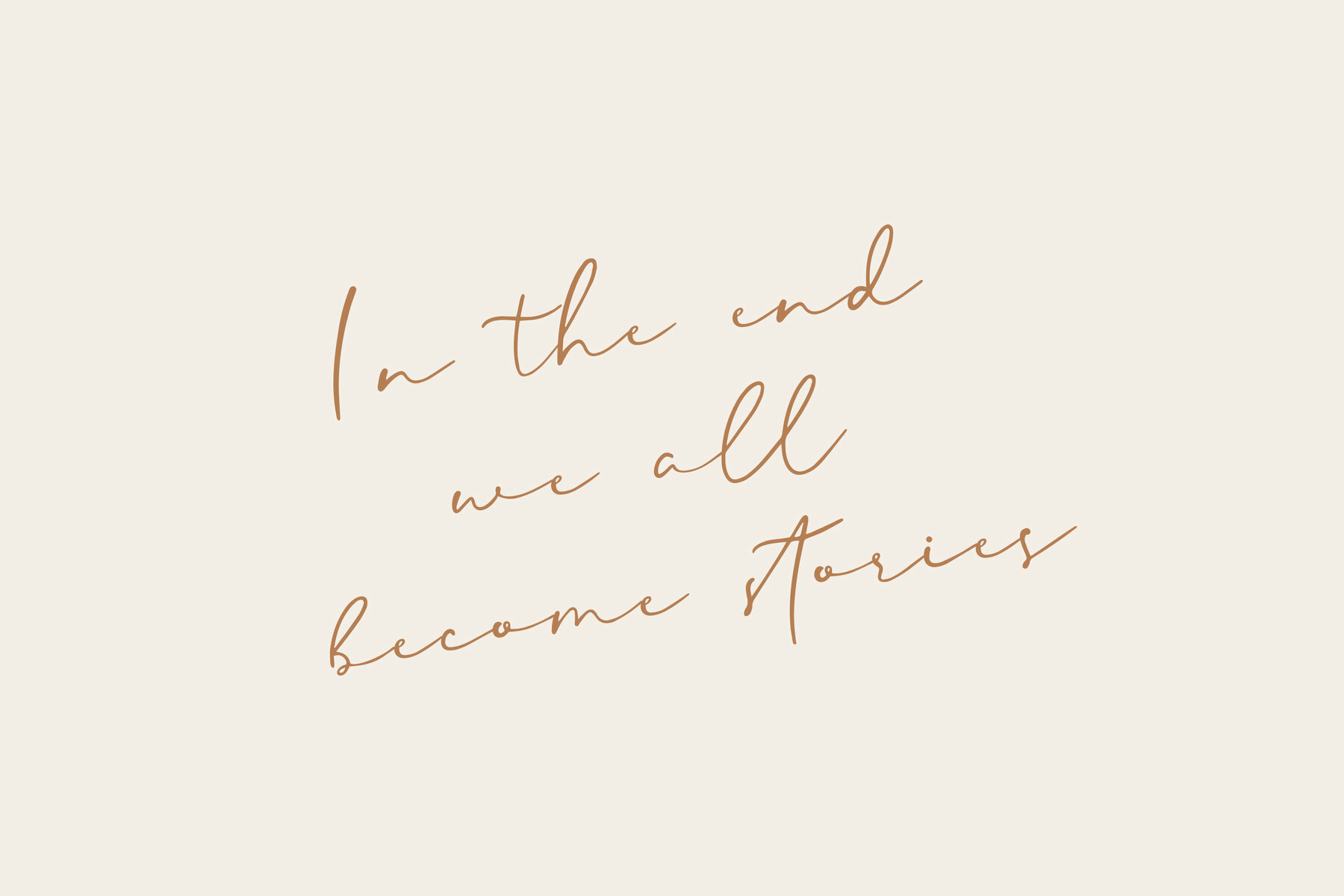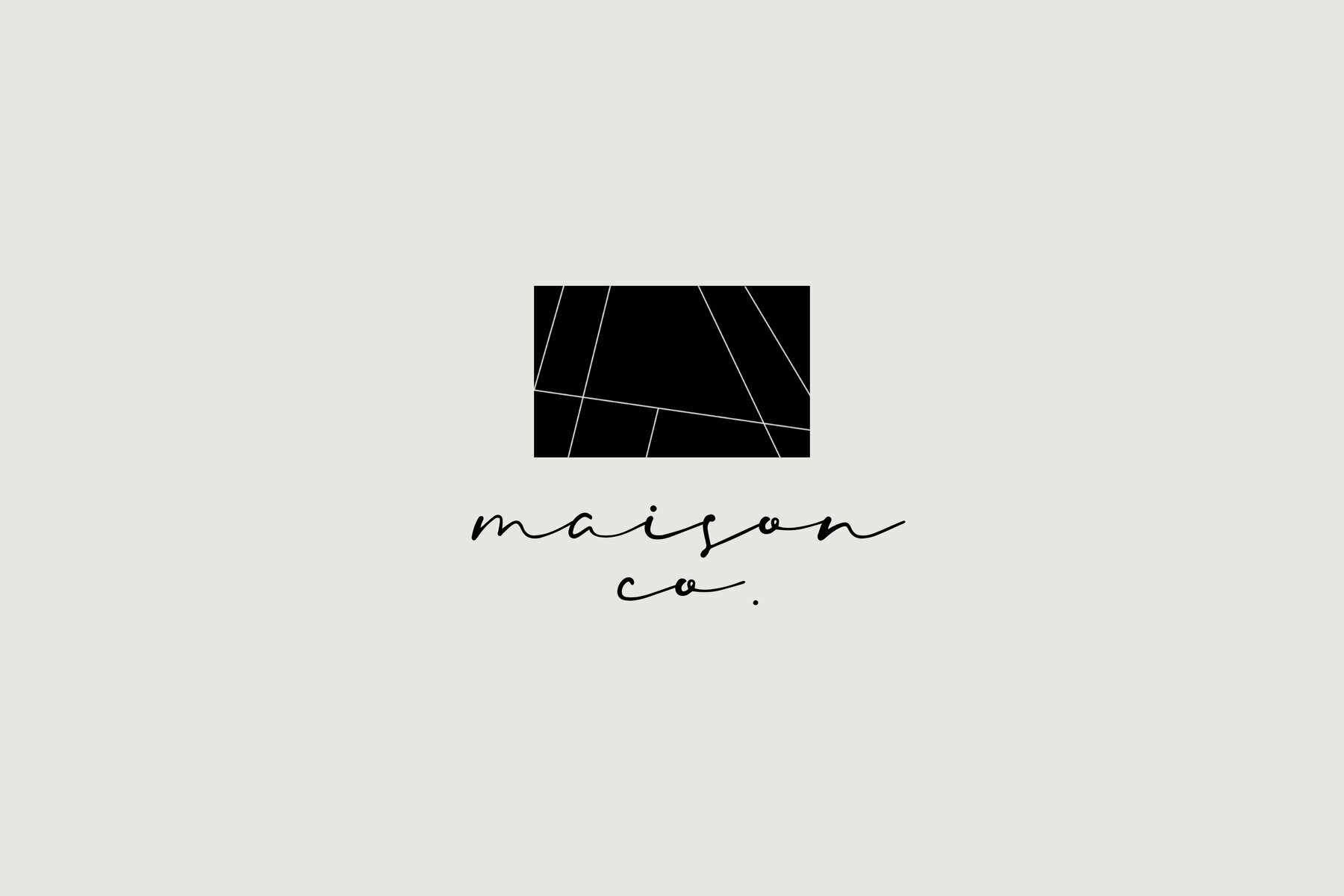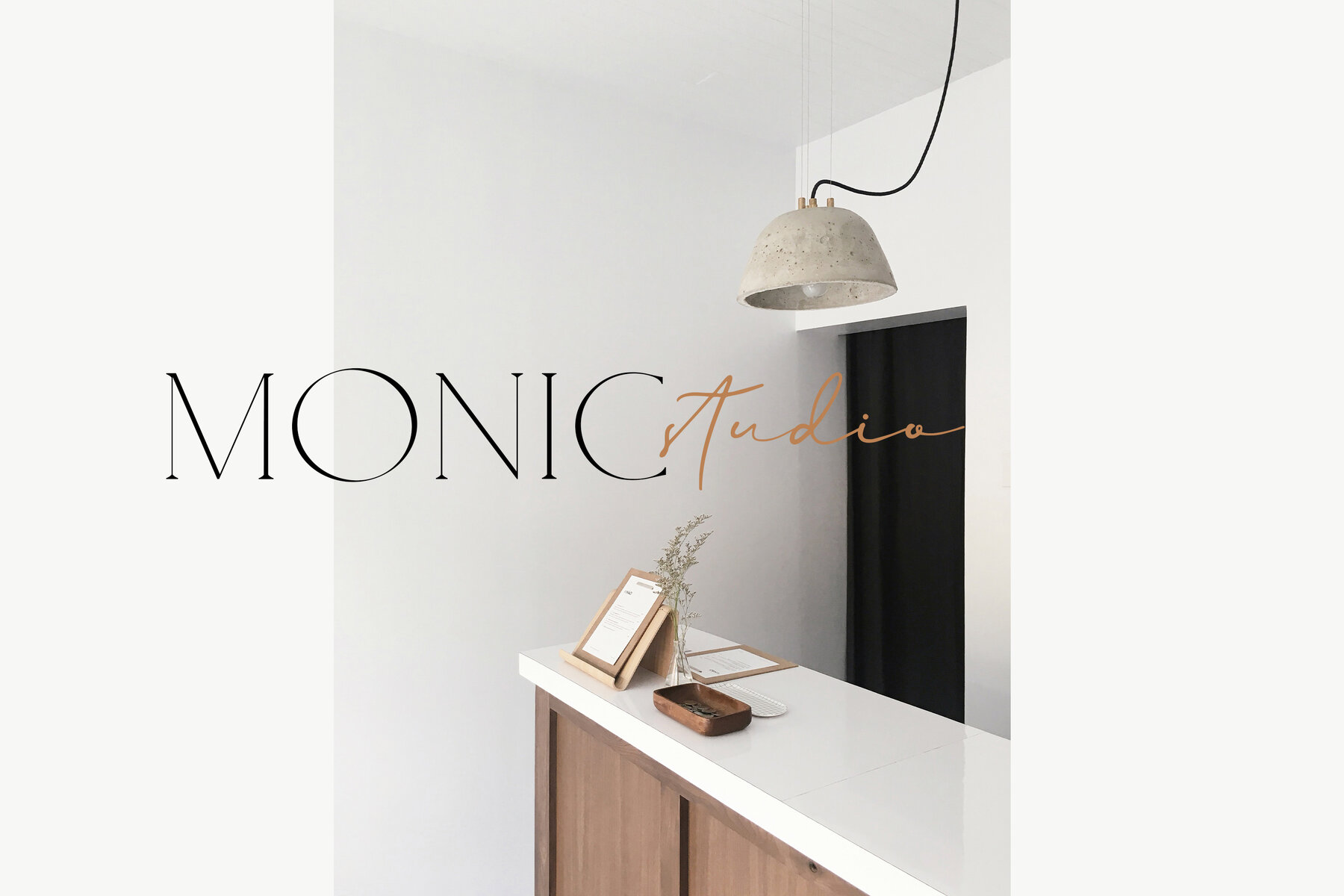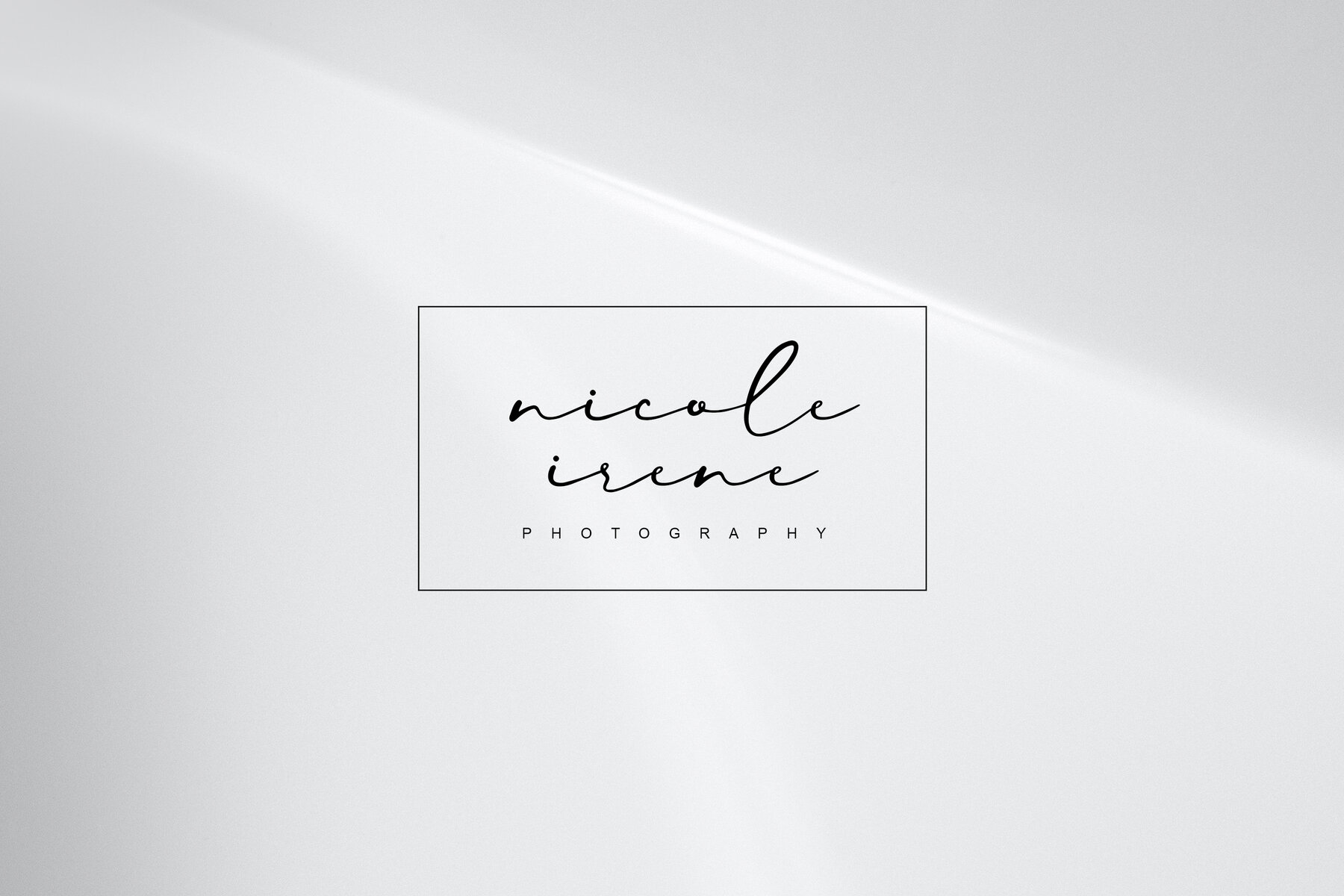
Loved one Font
Loved one Regular
Loved one is a dreamy and delicate signature font designed to bring a personal touch to your projects. With its elegant, flowing strokes, this font is perfect for creating memorable signatures, personal branding, or crafting invitations that require a sophisticated appeal. Its unique style adds a touch of elegance and individuality to any design.
The font includes full multilingual support, making it an ideal choice for a wide range of audiences. Loved one combines intricate detailing with readability, ensuring that your text remains visually appealing across various applications. The script's gentle curves and elegant form make it suitable for a variety of projects where a refined artistic touch is desired.